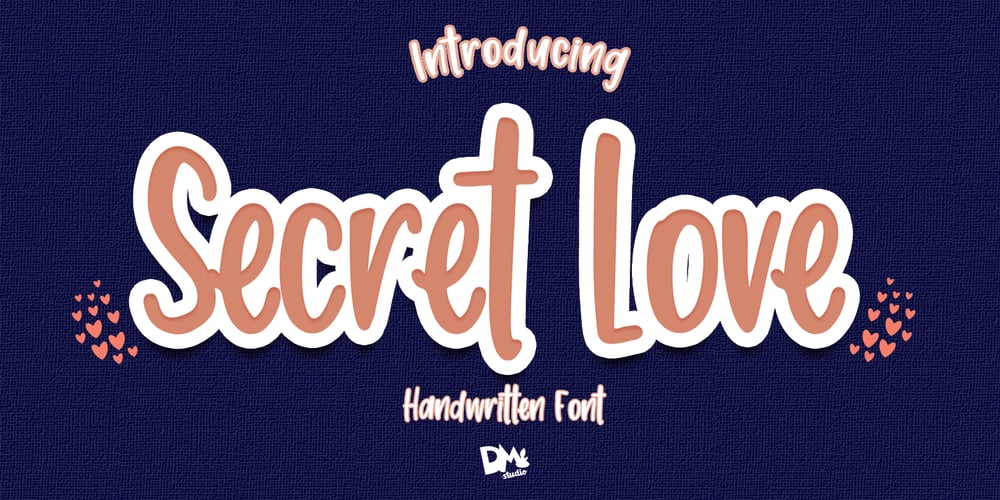
Secret Love
Secret Love font
Secret Love Font Family was designed by Dimas Prasetyo and published by DM Studio. Secret Love contains 1 styles and family package options. Secret Love Handwritten Font is a beautifully crafted typeface that exudes romance and elegance. Its delicate, flowing strokes make it perfect for love letters, wedding invitations, romantic projects, and heartfelt messages. This font adds a touch of intimacy and personal charm to your designs, making them stand out with grace and sophistication.Features: Romantic and Elegant Design: The Secret Love Font features delicate, flowing strokes that evoke a sense of romance and elegance. Versatile Application: Ideal for love letters, wedding invitations, romantic projects, greeting cards, and more. Uppercase and Lowercase Letters: Both uppercase and lowercase letters included for creative flexibility. Punctuation and Symbols: Comprehensive set of punctuation marks, numerals, and symbols for versatile use. Easy Installation and Use: Simple installation on both Windows and Mac operating systems, and seamless integration with popular design software.